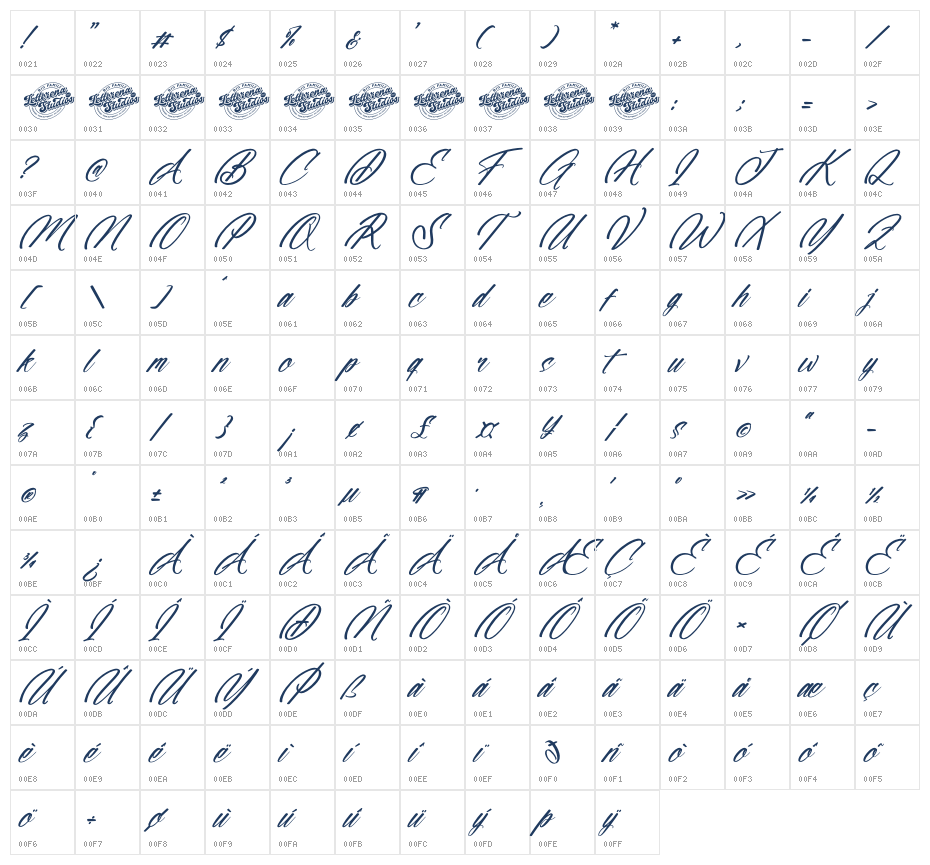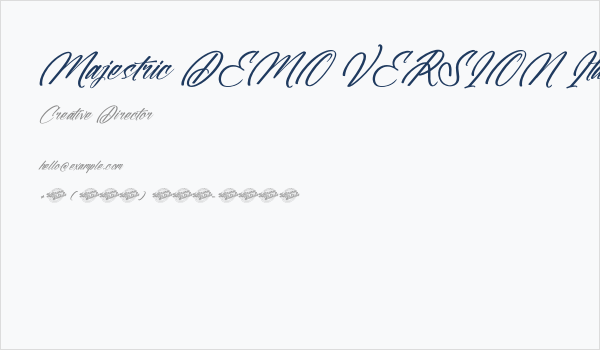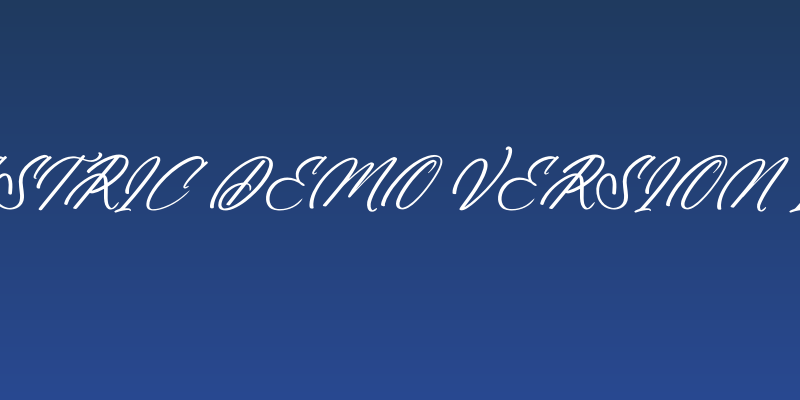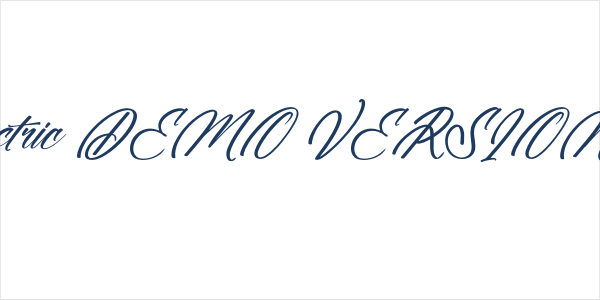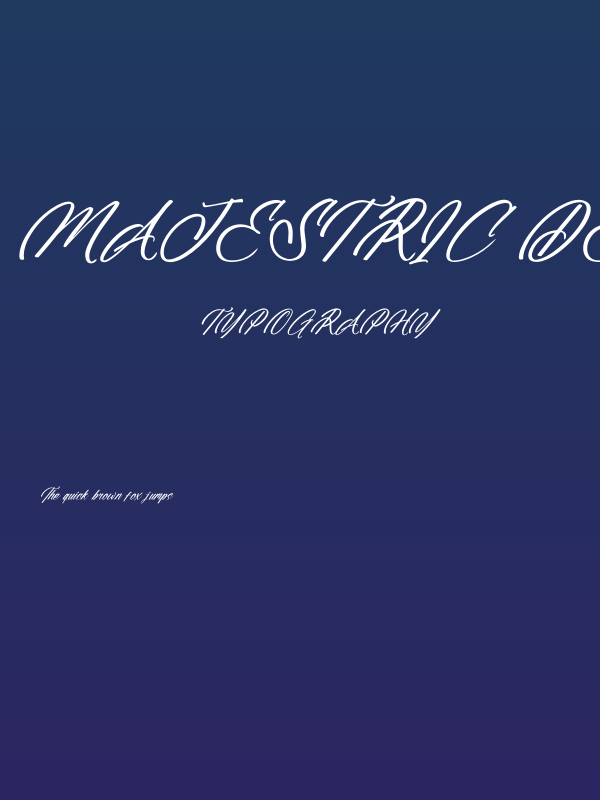
Majestric DEMO VERSION Italic Font
Majestric DEMO VERSION Italic Description
A cursive, handwritten style font with elegant, flowing strokes and a slightly slanted appearance.
| Overall Style | Elegant, Script, Handwritten |
| Use Case | Invitations, greeting cards, logos, branding, personal stationery. |